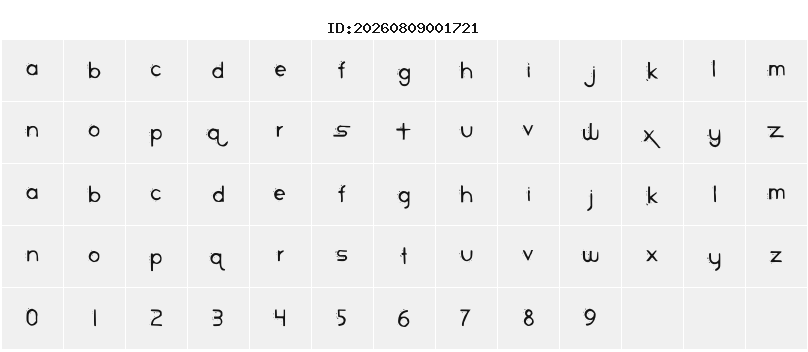
• Font Name: Piranha
• Full Font Name: Piranha
About Piranha.ttf
Piranha.ttf is a modern, elegant sans-serif font designed for ultimate readability and visual harmony. Perfect for branding, headlines, web design, and print materials.